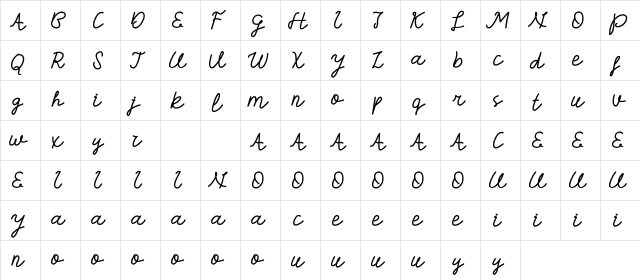
Vlorens Flower DEMO Script
| Style | Script |
| Foundry | edric studio |
| Designer | Aghnia + Yasri |
Design Context for Vlorens Flower DEMO Typeface
Vlorens Flower DEMO flows with the natural rhythm of handwritten lettering, making it ideal for designs that call for warmth and personal expression.